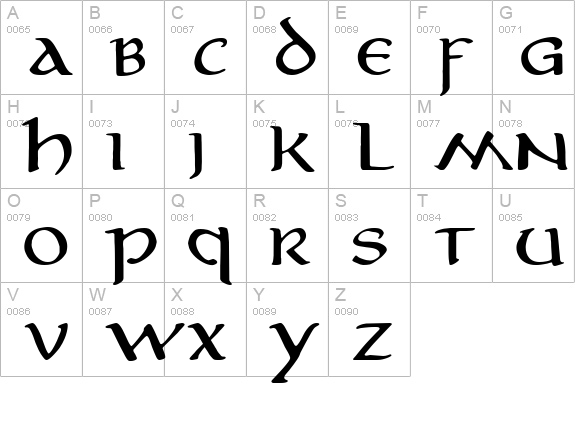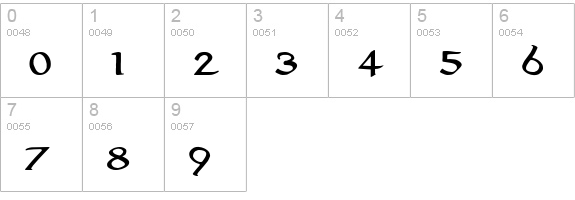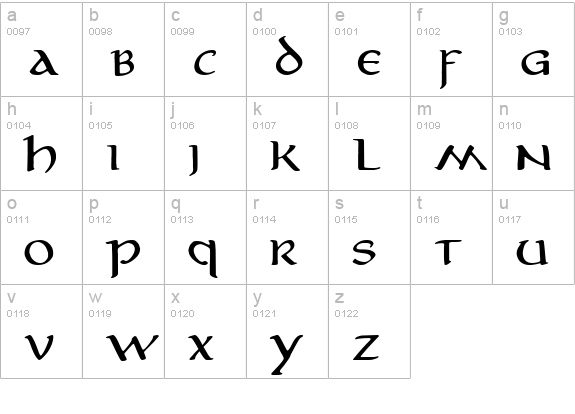
Aniron font is a beautiful and elegant typeface that exudes sophistication and grace. Its smooth curves and delicate strokes make it perfect for adding a touch of refinement to any design project. Whether you're creating a logo, designing a wedding invitation, or crafting a stylish poster, Aniron font will elevate your work to new heights. What sets Aniron font apart is not just its stunning aesthetics, but also its accessibility. This incredible font is available for free download at FontsMarket.com, making it easily accessible to designers and enthusiasts alike. With just a few clicks, you can add this captivating font to your collection and start incorporating its unique charm into your designs. Aniron font is a versatile typeface that can be used in a variety of contexts. Its timeless appeal makes it suitable for both modern and classic designs, ensuring that it remains a valuable asset in your creative toolkit. Whether you're going for a sleek and contemporary look or a more vintage-inspired aesthetic, Aniron font will effortlessly complement your vision. The attention to detail in Aniron font is evident in its carefully crafted letterforms. Each character has been meticulously designed to create a harmonious balance between elegance and legibility. The result is a font that not only looks stunning but also remains highly readable, even at smaller sizes. With Aniron font, you have the freedom to explore endless design possibilities. From sophisticated branding projects to eye-catching headlines, this font will help you make a lasting impression. Its versatility, combined with its freely available nature, makes Aniron font a must-have for designers who value both style and accessibility. So why wait? Download Aniron font today from FontsMarket.com and unlock a world of creative potential. With its timeless beauty and effortless charm, this font will undoubtedly become a valuable addition to your design arsenal. Embrace the elegance of Aniron font and watch your designs come to life with a touch of sophistication.